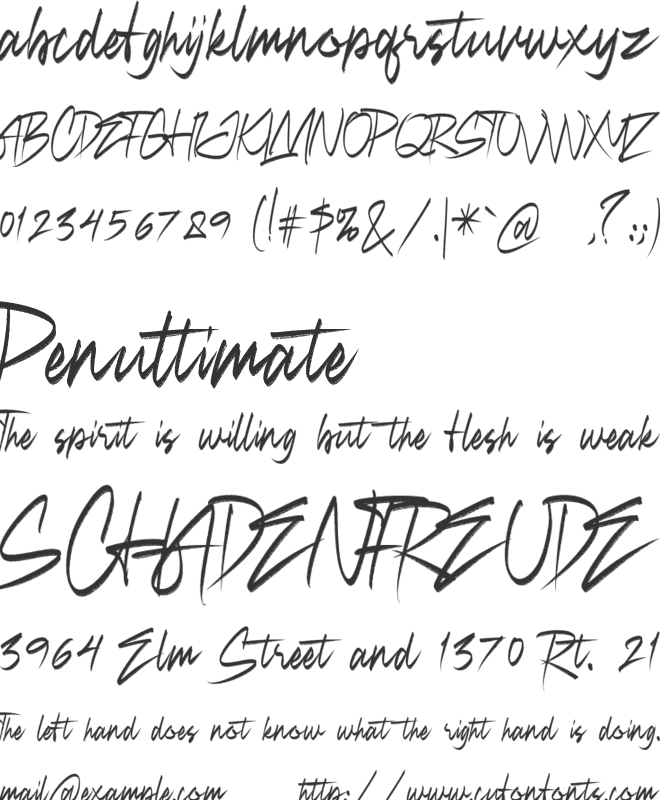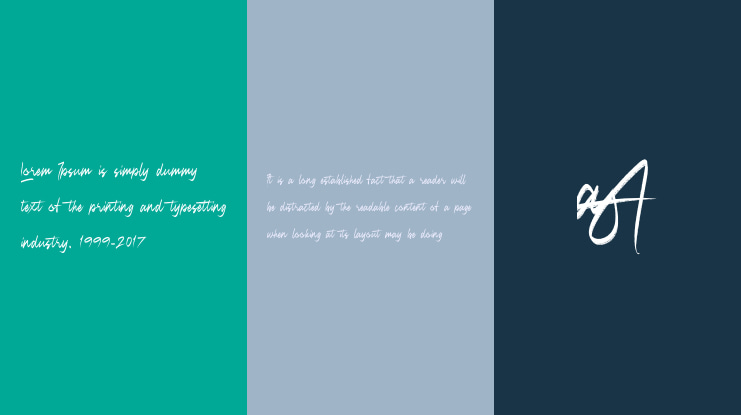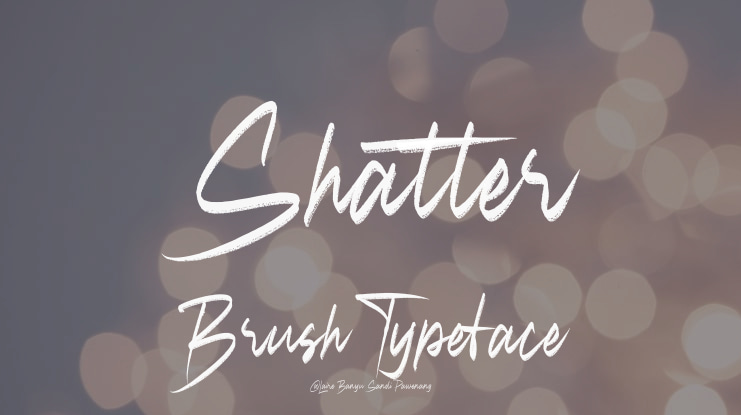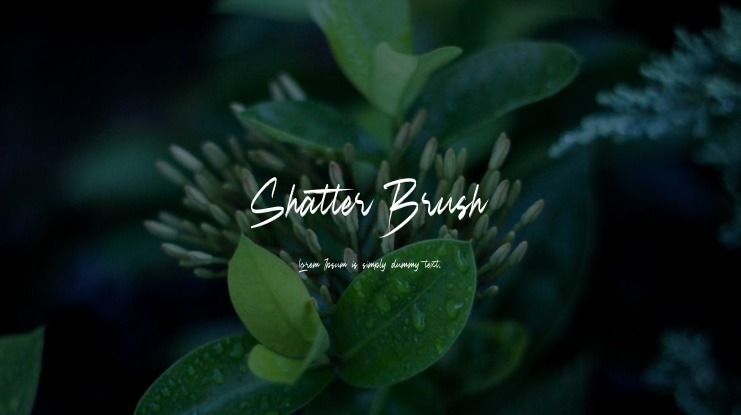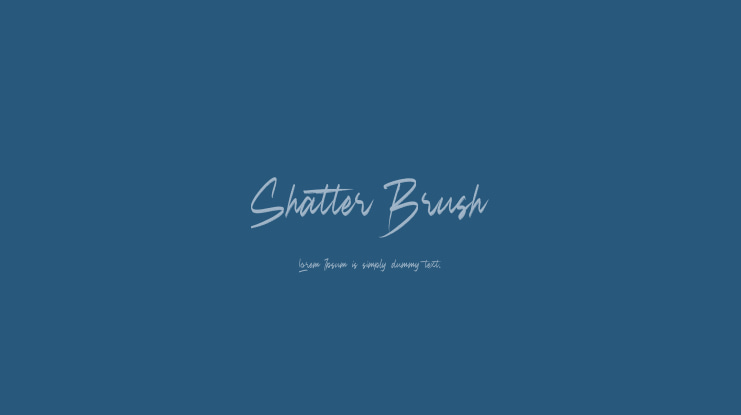
Shatter Brush is an urban script font that exudes boldness, energy, and attitude. It features rough, irregular strokes, creating a gritty and expressive feel, making it perfect for branding, posters, apparel, and designs with a street art or urban culture vibe.